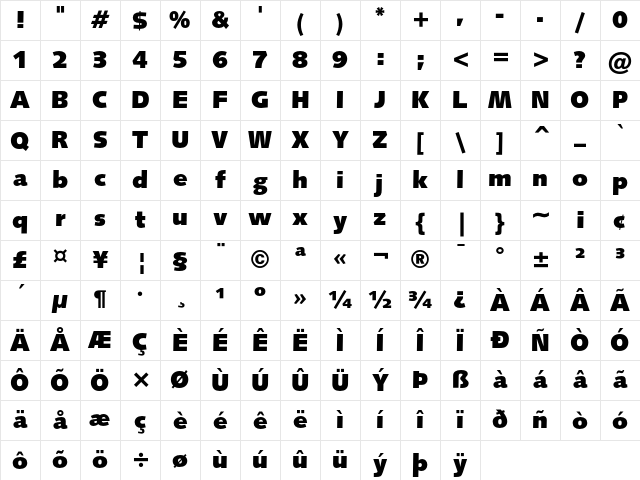
Humanist 531 Ultra Black
Style: Ultra Black
Humanist 531 Family
Humanist 531 Ultra Black
Design Context for Humanist 531
Humanist 531 is a composed and adaptable typeface that performs quietly and consistently across a wide range of design contexts.